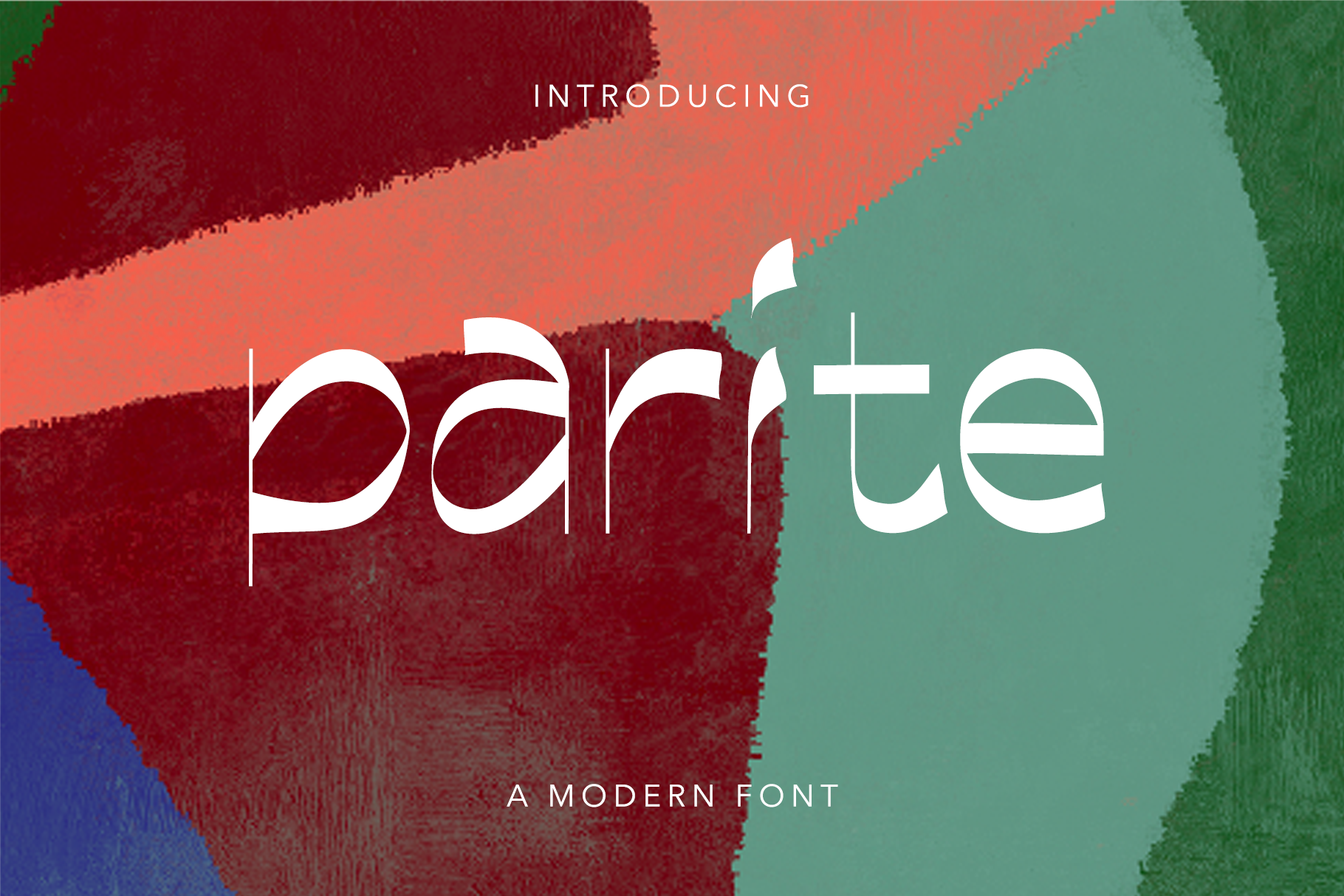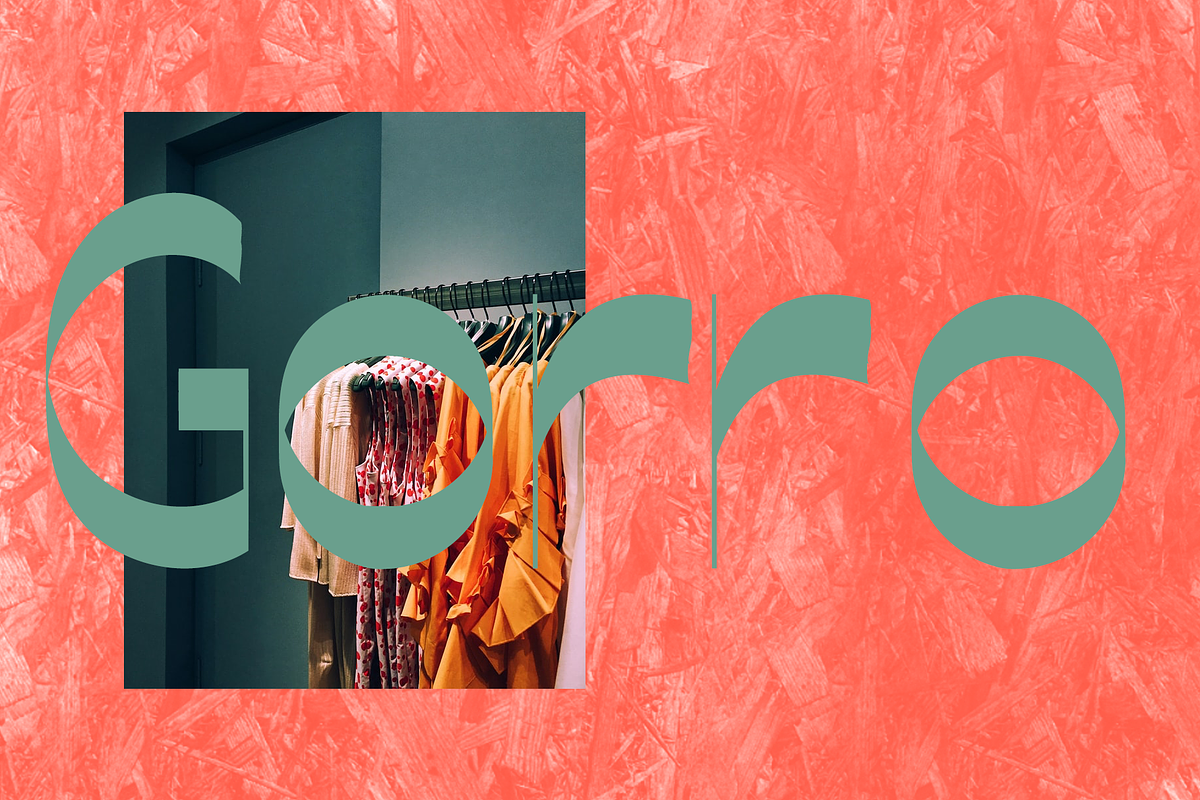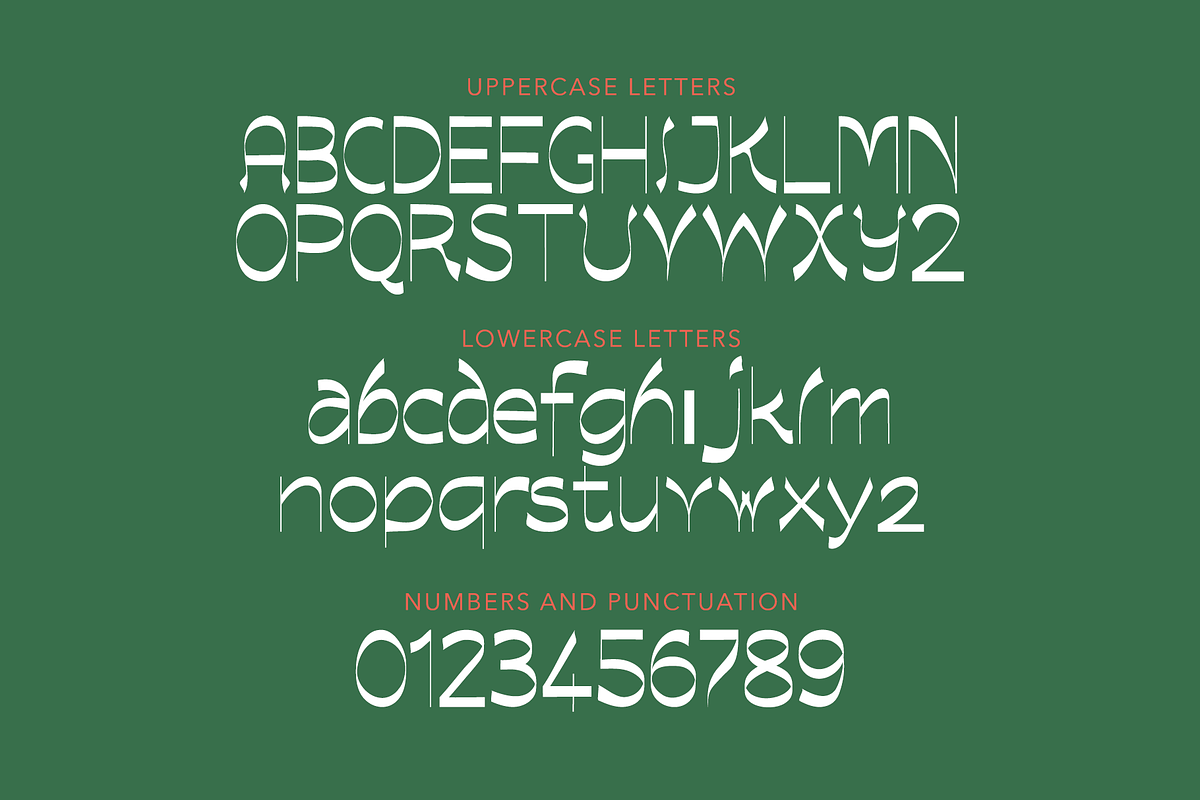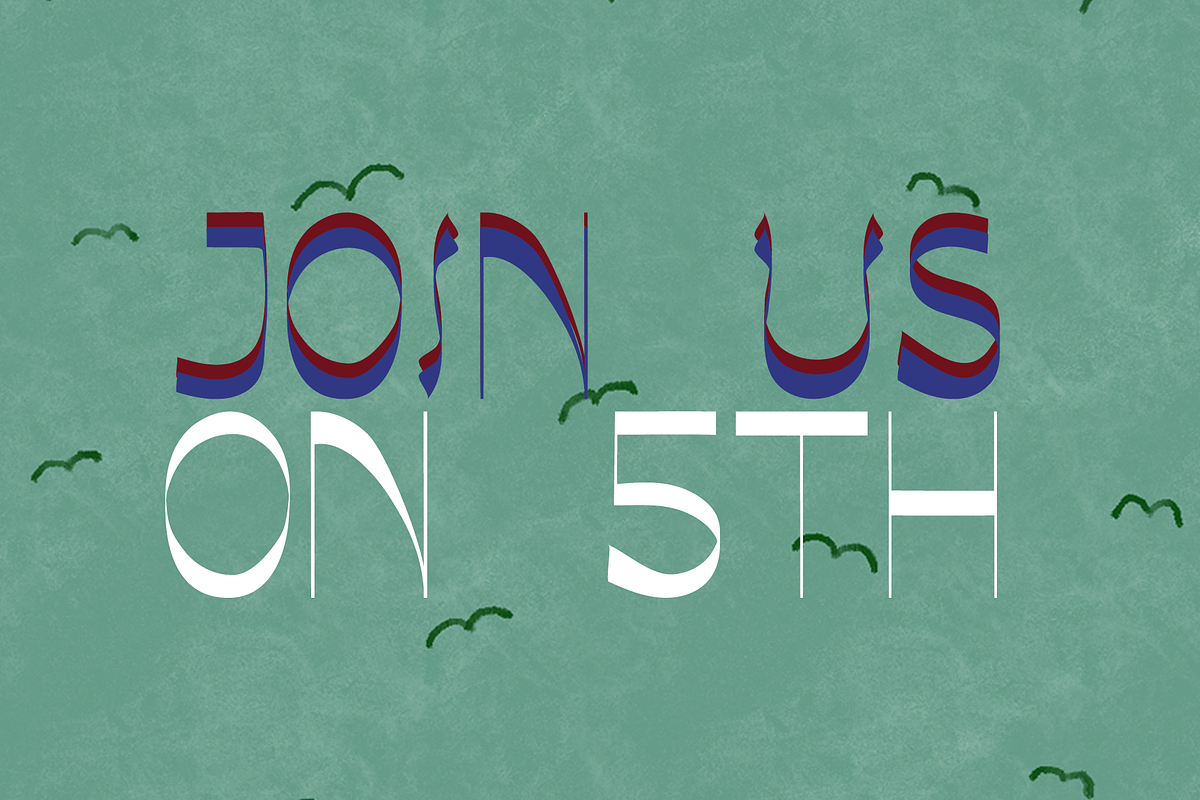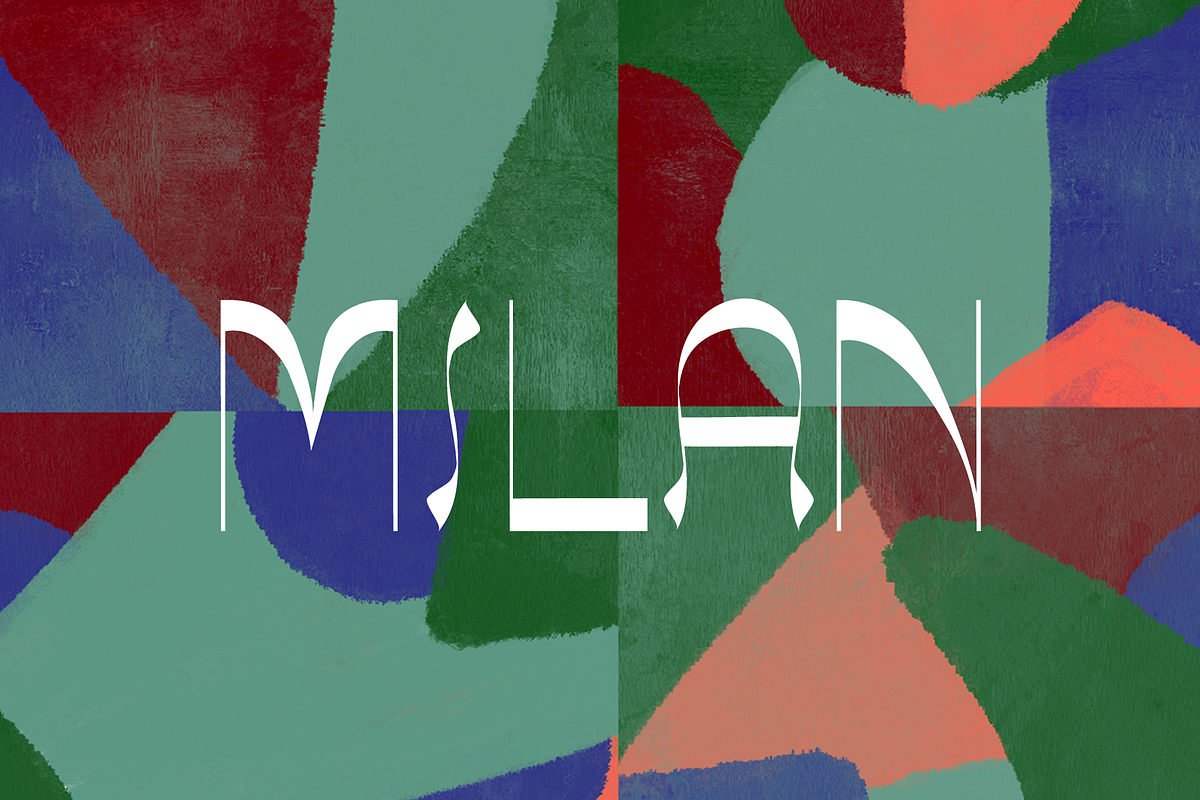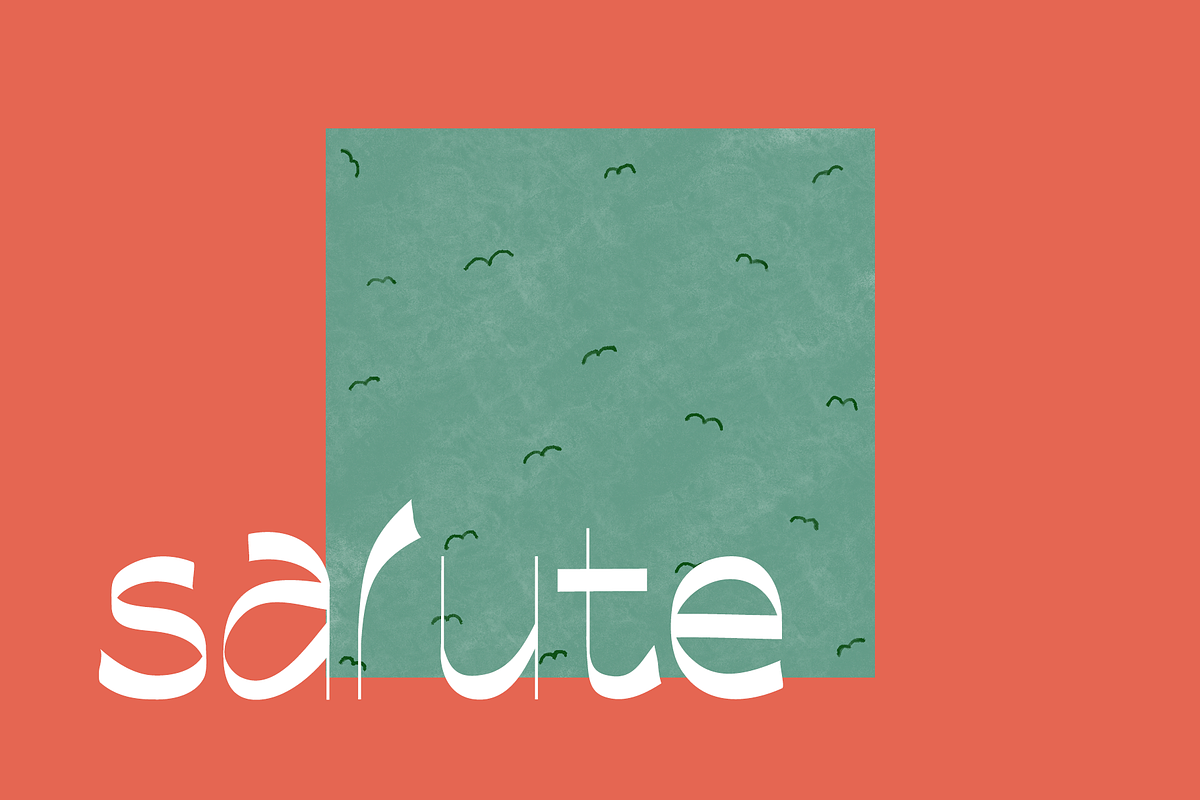
Parite Font
Parite is a rare find with its special features. The letters flow into each other with charming details, making a very cool font. It would be perfect for logos, magazines and film/tv show covers.